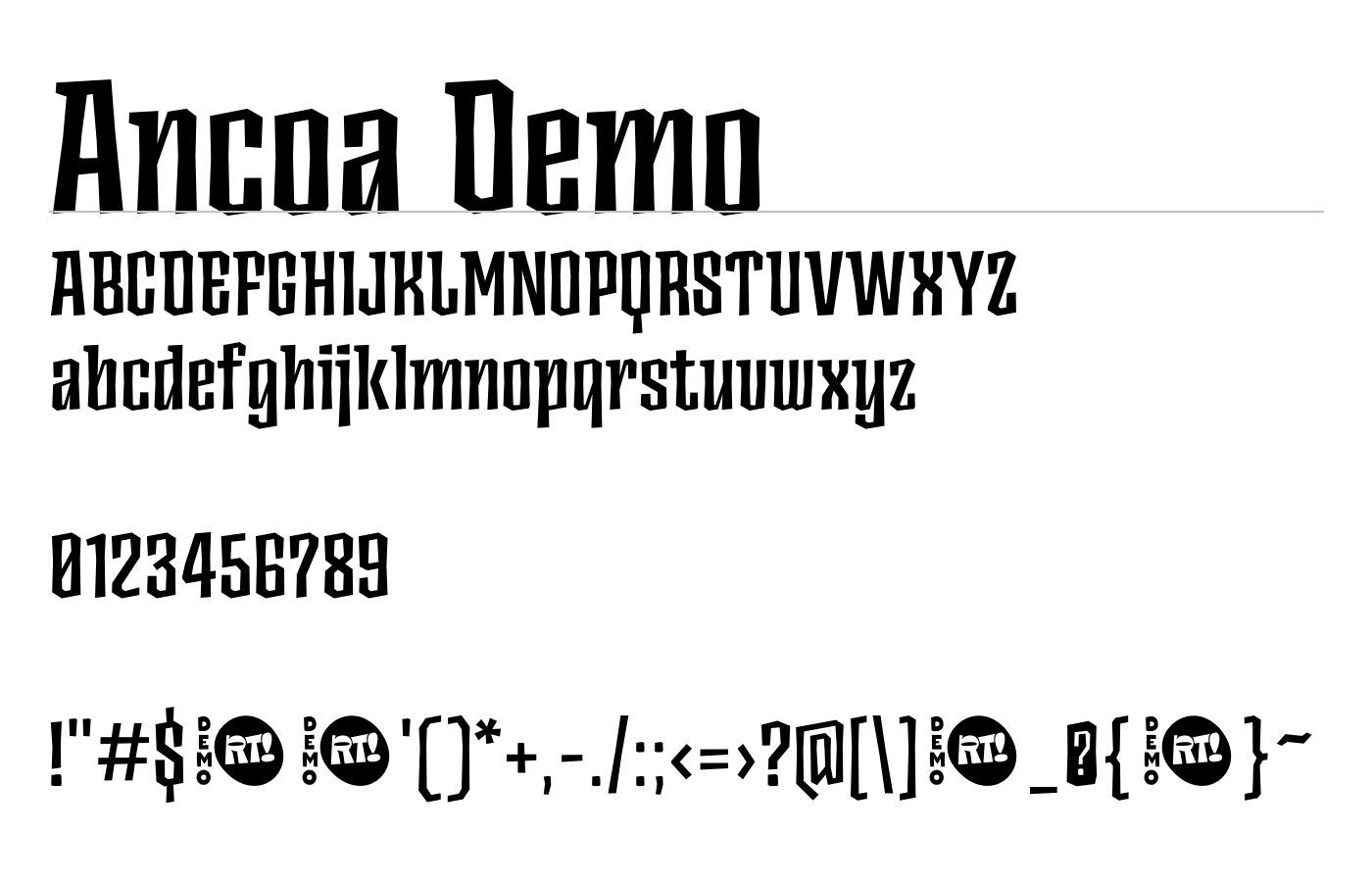
Ancoa Demo is a bold, condensed serif font with a vintage, slightly quirky character. Its strong vertical strokes and angular shapes give it a distinctive, energetic feel, making it perfect for eye-catching headlines, posters, and branding that aims to stand out with a unique, retro-inspired style. This font works well where personality and impact are needed, lending a playful yet confident tone to design projects.
Ancoa Demo Font
About Ancoa Demo Font
| Font family | Ancoa Demo Font |
| Designer | Rodrigo Araya Salas |